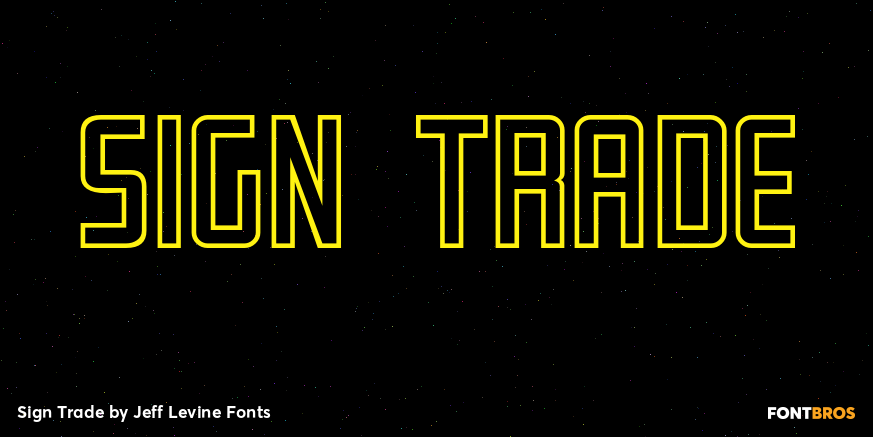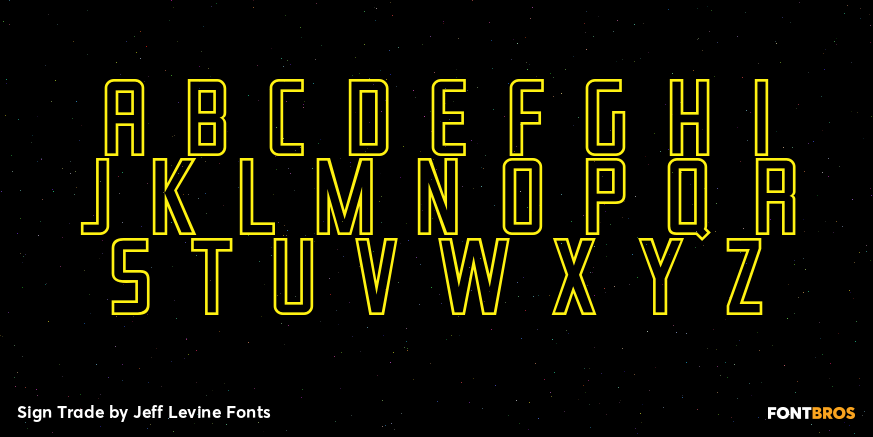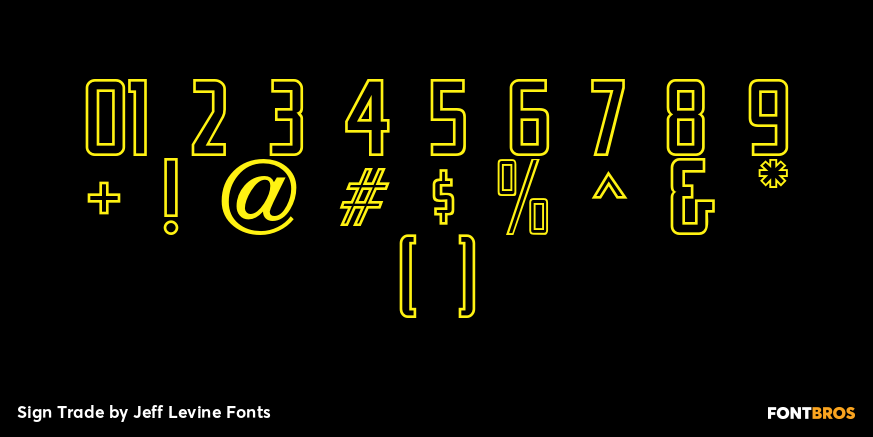
Sign Trade
Sign Trade JNL is a reworking of Sign Crafter JNL. With a traditional M,N and W replacing the stylized versions of these letters in the previous font, Sign Trade JNL also offers an oblique version.